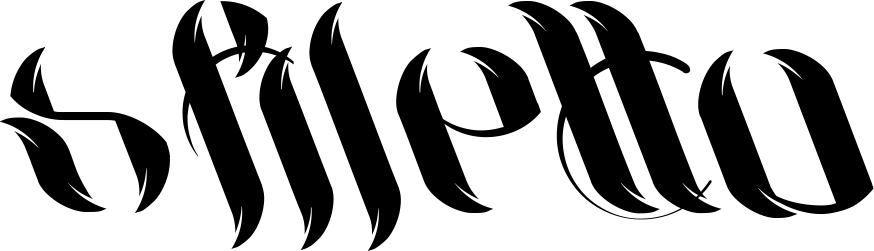
Unileaf Font
Unileaf font is similar to the leaves of trees and bird feathers, and these features in the structure help you prepare attractive nature designs and elements such as trees for the creation of the flyer camp.
This leaf font will also be one of the best gifts for designing birthday greeting cards with decorative elements such as balloons.